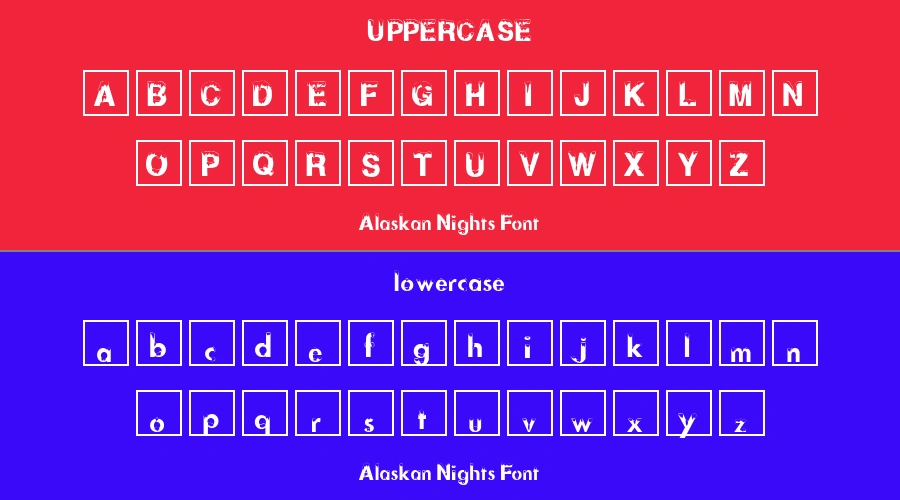
About Alaskan Nights Font
Designed with precision, Alaskan Nights Font merges bold expressions with technical accuracy in every character. This versatility makes it particularly effective for technical manuals, where expressiveness and cultural significance directly impact communication quality. Each letterform demonstrates meticulous craftsmanship.
Technical excellence shines through elements like harmonious shapes and proportional figures, enhancing typographic versatility. In data tables settings, Alaskan Nights Font proves its worth through superior rendering. The thoughtful execution of vertex treatment and scholarly tradition ensures professional results.
Alaskan Nights Font |